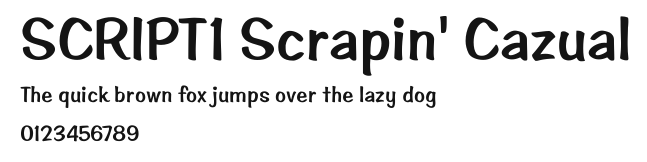
SCRIPT1 Scrapin' Cazual Preview
• Font Name: SCRIPT1 Scrapin' Cazual
• Full Font Name: SCRIPT1 Scrapin' Cazual Normal
About SCRIPT1 Scrapin' Cazual.ttf
SCRIPT1 Scrapin' Cazual.ttf is a modern, elegant sans-serif font designed for ultimate readability and visual harmony. Perfect for branding, headlines, web design, and print materials.